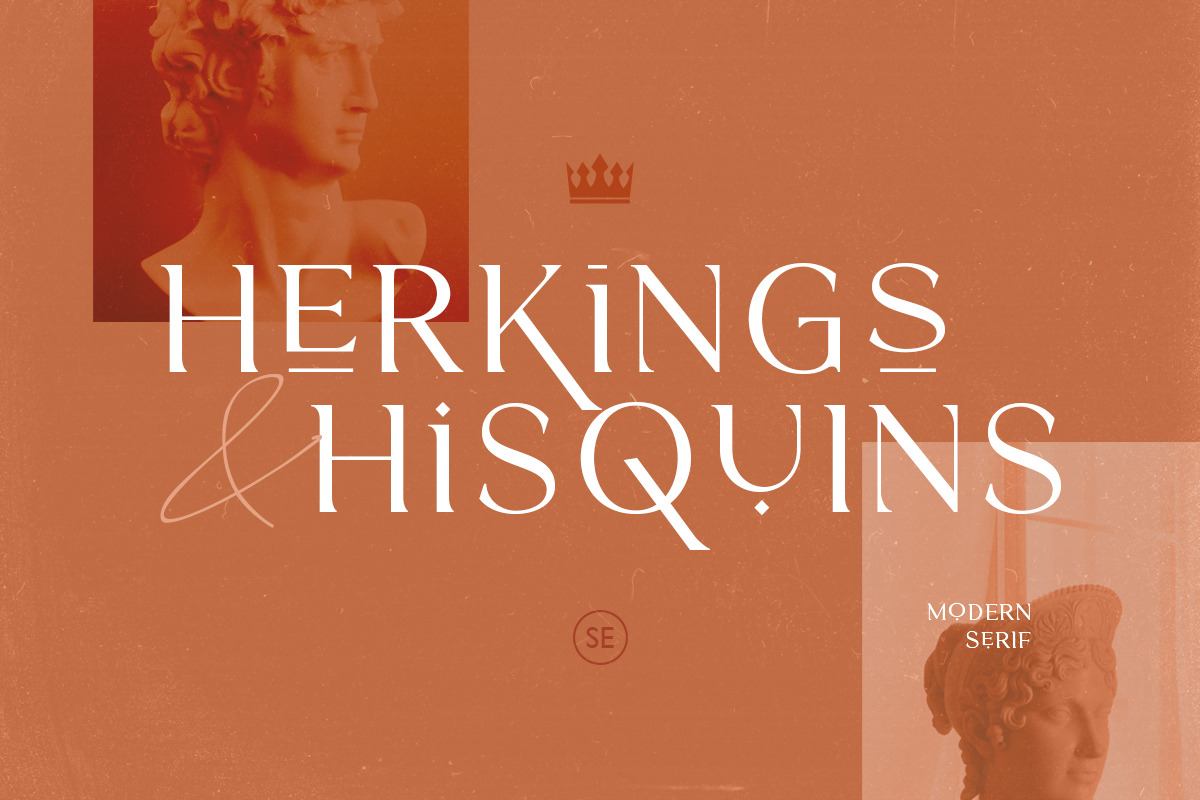
Herkings & Hisquins – Modern Serif Font is perfect for contemporary editorial design, sophisticated brand identities, modern magazine layouts, upscale business communications, elegant book covers, refined logo creation, premium packaging materials, cultural institution branding, architectural firm presentations, luxury fashion campaigns, distinguished corporate materials, and sophisticated typography applications.
Herkings & Hisquins – Modern Serif Font is exciting because it masterfully combines the timeless elegance of classical serif tradition with cutting-edge contemporary design sensibilities, creating a dual-personality typeface that embodies both regal sophistication and modern innovation. This remarkable font duo features complementary letterforms that work in perfect harmony, offering designers the flexibility of two distinct yet unified serif styles that can be used individually or together for maximum typographic impact. The fonts' sophisticated aesthetic speaks to audiences who appreciate both heritage craftsmanship and contemporary design excellence.
Herkings & Hisquins – Modern Serif Font includes comprehensive font families: Herkings Regular Elegant, Herkings Bold Distinguished, Herkings Light Refined, Hisquins Regular Contemporary, Hisquins Bold Modern, Hisquins Light Sophisticated, Medium Balanced Weights, Italic Flowing Variations, Condensed Professional Formats, Extended Prestigious Widths, and Special Complementary Symbols, providing complete solutions for sophisticated serif typography needs and contemporary brand communications.
This distinguished typography solution transforms standard communications into sophisticated design statements through its perfect balance of classical heritage and modern innovation. Herkings & Hisquins – Modern Serif Font Free Download enables designers and sophisticated brands to access premium dual serif typography that instantly adds elegance, versatility, and contemporary sophistication to any creative project. The fonts' meticulously crafted complementary relationship ensures perfect pairing possibilities while maintaining distinctive individual character and unified aesthetic appeal.
Editorial publishers, luxury brands, and sophisticated businesses trust Herkings & Hisquins – Modern Serif Font for its ability to communicate refinement, contemporary elegance, and typographic sophistication to discerning audiences who appreciate both tradition and innovation in design. The typeface duo's versatile construction performs beautifully across various applications, from intimate luxury communications to large-scale contemporary branding campaigns. Its extensive character support includes multilingual capabilities and sophisticated design elements that enhance elegant brand presentations.
The design philosophy behind Herkings & Hisquins – Modern Serif Font celebrates the evolution of serif typography in the modern era, creating letterforms that honor classical traditions while embracing contemporary design requirements. This heritage-innovation approach creates a font duo that feels both timeless and thoroughly contemporary across different sophisticated contexts and elegant brand expressions.
Whether creating contemporary brand identities, sophisticated editorial materials, or elegant marketing campaigns, this modern serif duo delivers exceptional results that define the future of sophisticated typography. Download Herkings & Hisquins – Modern Serif Font today and discover how premium dual serif typography can transform your design projects into sophisticated expressions of contemporary elegance, typographic versatility, and the perfect harmony between classical heritage and modern innovation.